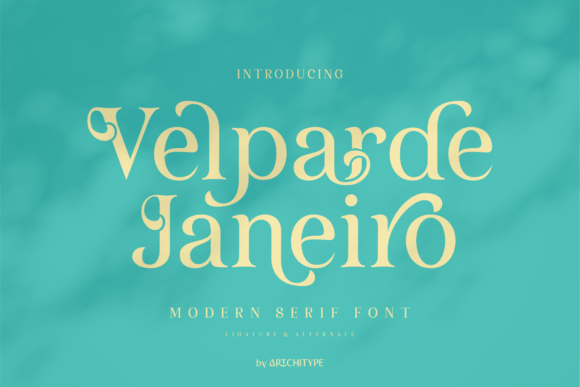
Introducing Velparde Janeiro - The Epitome of Sophistication and Style
In a realm of digital aesthetics, where fonts reign supreme, Velparde Janeiro emerges as a breathtaking display serif, a symphony of elegance and grace. This masterful creation by Artchitype Studio transcends the boundaries of ordinary typography, inviting you to a world where words dance with flair and finesse.
With its 270+ characters, Velparde Janeiro unveils a captivating repertoire of uppercase and lowercase letters, multilingual support, charming alternates, and an array of other characters that breathe life into your creative endeavors. It's a font that understands the nuances of communication, effortlessly adapting to your diverse linguistic needs.
Unleash your creativity and let Velparde Janeiro elevate your designs to new heights. Picture your brand's logo adorned with the timeless beauty of Velparde Janeiro, captivating your audience with its poise and panache. Envision your social media posts transformed into captivating works of art, where every word dances with rhythm and allure.
Velparde Janeiro isn't merely a font; it's an experience - an immersion into the world of sophistication and elegance. Its meticulously crafted curves and refined serifs evoke a sense of luxury and refinement, leaving an indelible mark on your audience.
With Velparde Janeiro, your product packaging and designs will transcend the mundane, becoming emblems of distinction and quality. Your customers will recognize the attention to detail, the unwavering commitment to excellence embodied in every letterform.